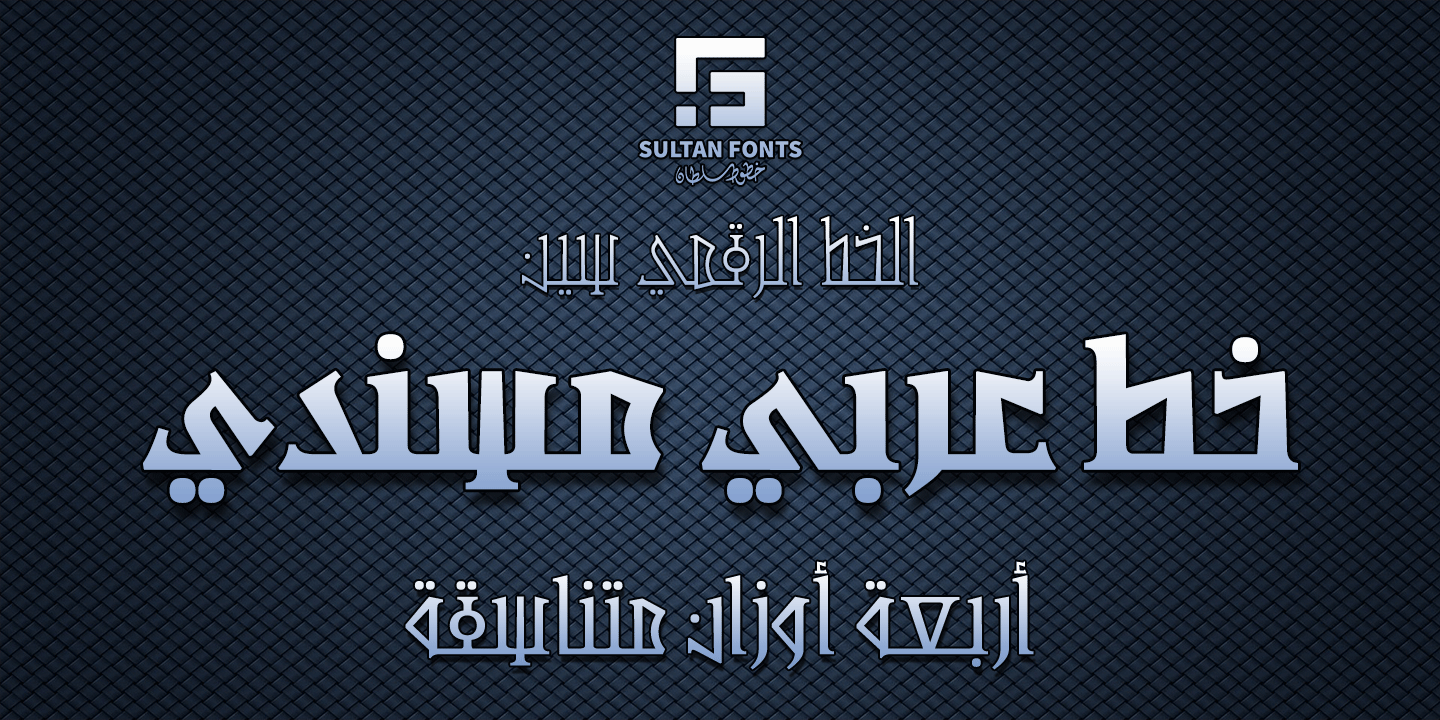
SF Seen Font is perfect for futuristic branding projects, sci-fi movie posters, tech startup logos, gaming interfaces, space exploration campaigns, cyberpunk designs, digital art exhibitions, virtual reality experiences, robotics company branding, electronic music album covers, and any project that requires cutting-edge typography with technological sophistication.
What makes SF Seen Font exciting is its distinctive fusion of science fiction aesthetics and contemporary design principles. This innovative typeface features sleek, angular letterforms with geometric precision that evokes the atmosphere of advanced technology and space-age innovation. The font's clean lines and futuristic character shapes make it an exceptional choice for brands seeking to convey progress, intelligence, and technological leadership while maintaining perfect readability in both digital and print applications.
SF Seen Font family includes multiple weights and stylistic variations, providing designers with comprehensive options for creating cohesive futuristic design systems. The font family typically offers light, regular, medium, and bold weights, along with extended character sets and special symbols that enhance the sci-fi aesthetic and support complex typographic hierarchies.
Whether you're designing for technology companies, entertainment brands, or innovative startups, SF Seen Font Free Download delivers the forward-thinking aesthetic and visual impact that next-generation design projects demand. Its versatile nature makes it ideal for user interfaces, product packaging, and brand communications that need to project technological advancement and reliability.
The font's bold presence and crystal-clear legibility ensure effective communication while maintaining its futuristic appeal. With SF Seen Font, your designs will transport audiences into tomorrow's world of endless possibilities.